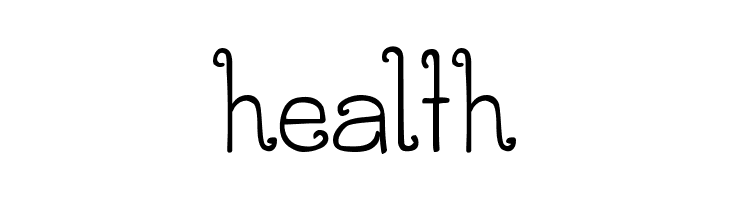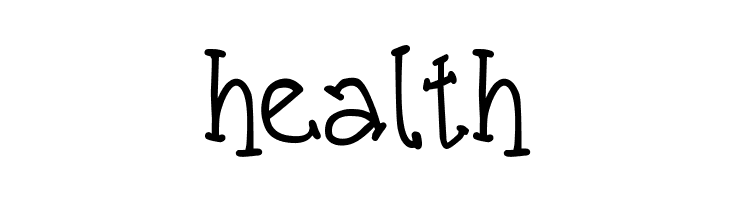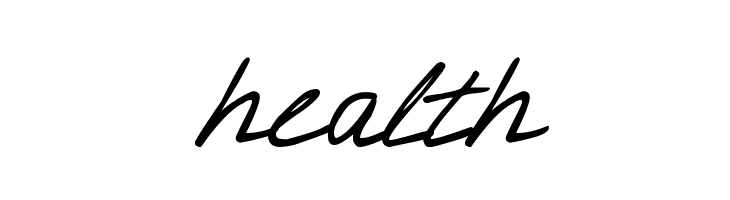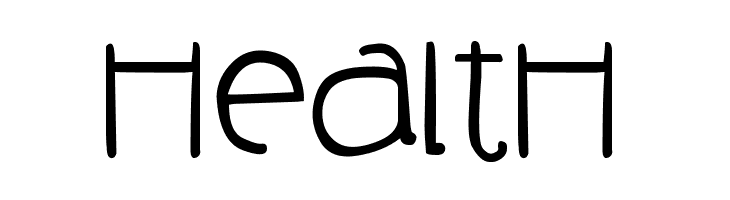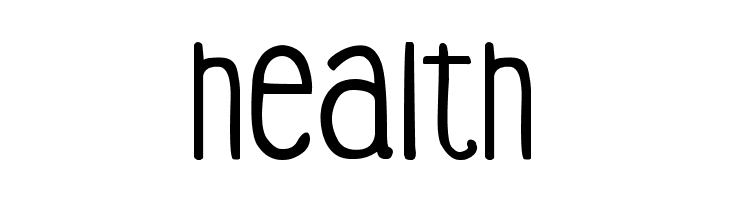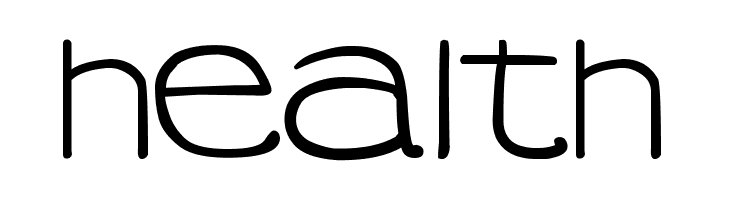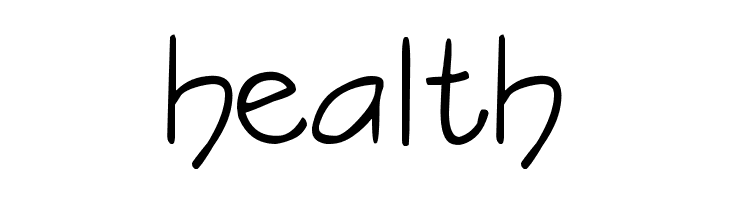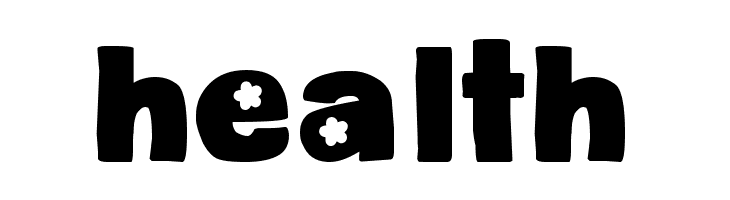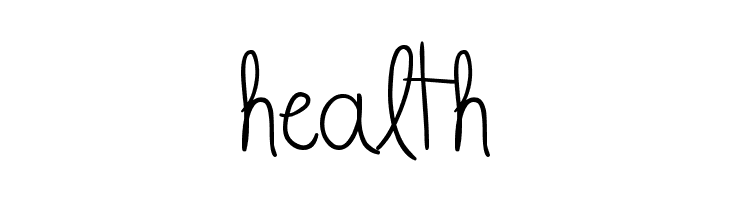
• DJB CLyleRun2
A playful, handwritten font with tall, narrow letters and thin strokes.
• DJB Coffee Shoppe Buzzed
A playful, handwritten font with a quirky and friendly style.
• DJB Coffee Shoppe Espresso
A playful, handwritten font with rounded edges and a friendly appearance.
• DJB Coffee Shoppe Venti
A playful, handwritten-style font with rounded edges and consistent stroke width.
• DJB Constance Beauregard
A whimsical, handwritten font with playful curves and artistic flair.
• DJB Crazy Goofy Cool
A playful, hand-drawn font with quirky, irregular characters.
• DJB CRIS script
A casual script font with fluid, handwritten strokes and a natural, elegant style.
• DJB CURLIE WURLIE
A whimsical and decorative font with playful curls and swirls.
• DJB Cutouts-Flowers Bold
• DJB Cutouts-Hearts Bold